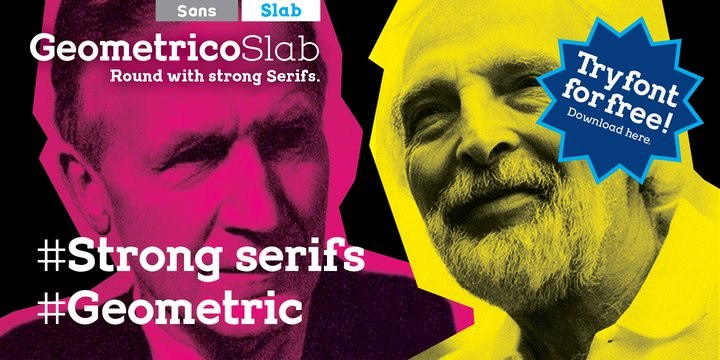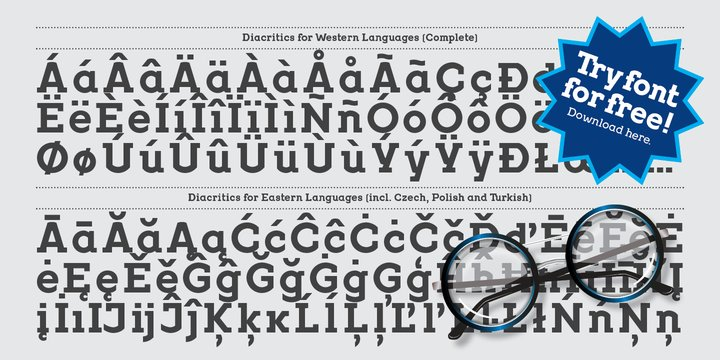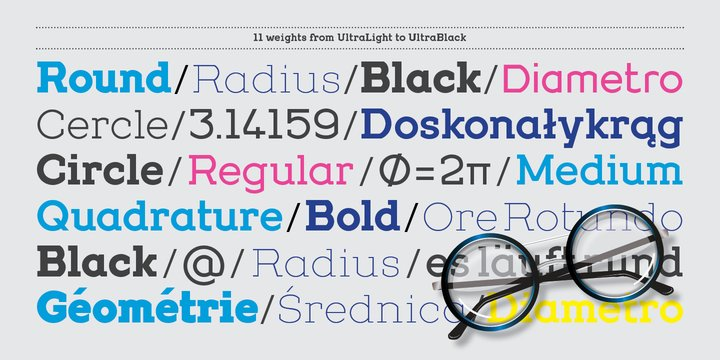
Geometrico Slab Font Family
Geometrico Slab Font Family Geometric and Slabserifs: a relatively rare combination. GeometricoSlab takes its cue from Herb Lubalin’s typeface family of the same name, and by using optical corrections with restraint, it looks a touch more uncompromising. The flexible, partly asymmetrical arrangement of the serifs avoids an overly heavy effect. The typeface family is suitable for both headlines and small point sizes and is related Geometrico Sans Curious? Try GeometricSlab free of charge.